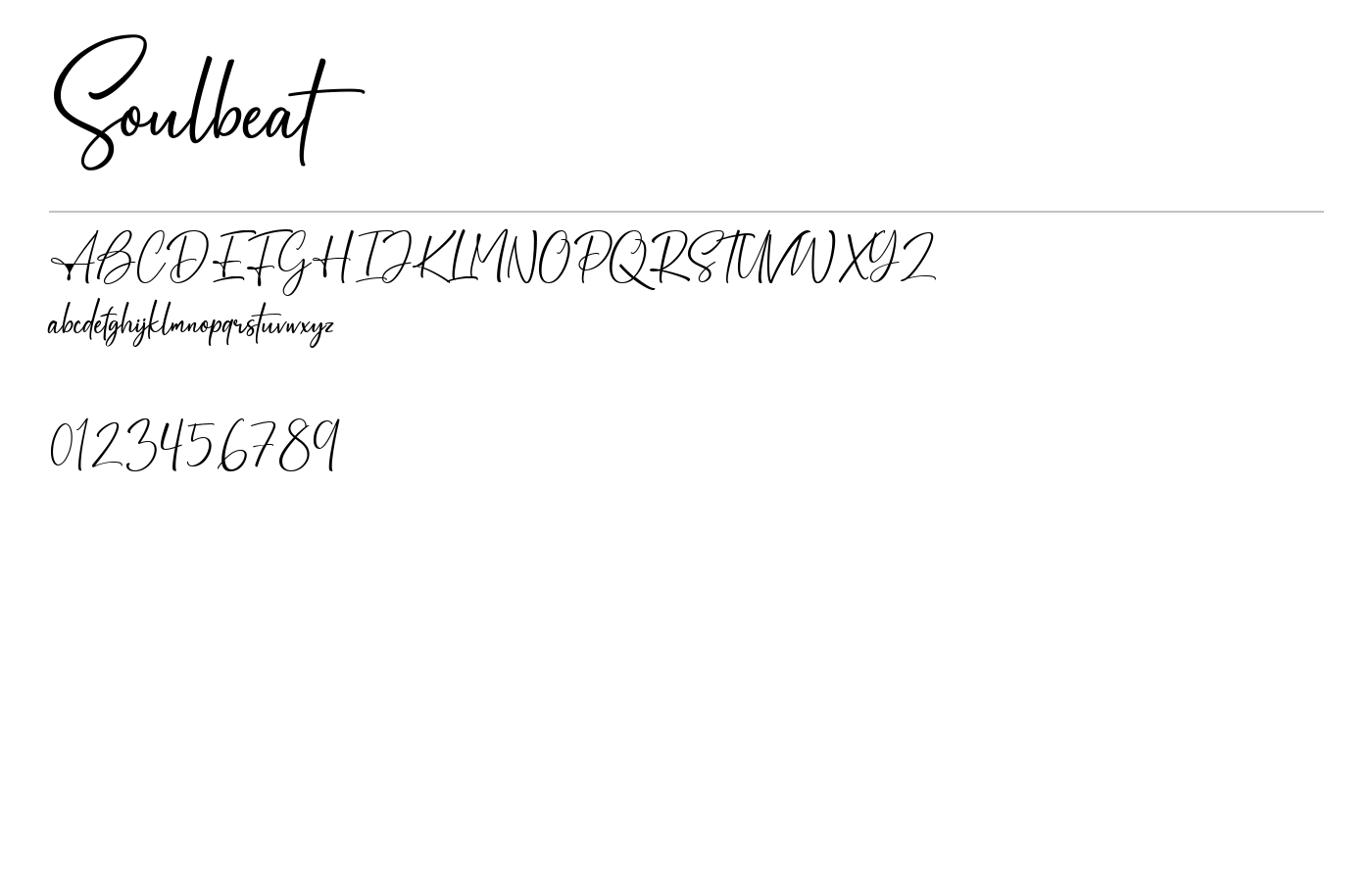
Soulbeat is an elegant, modern script font characterized by its slender, flowing strokes and casual yet refined handwritten style. Its tall, narrow letters with delicate curves and varied line thickness give it a fresh, approachable personality, making it ideal for creative branding, invitations, and stylish headlines that seek a personal, artistic touch.
Soulbeat Font
About Soulbeat Font
| Font family | Soulbeat Font |
| Designer | Tezar Tantular |